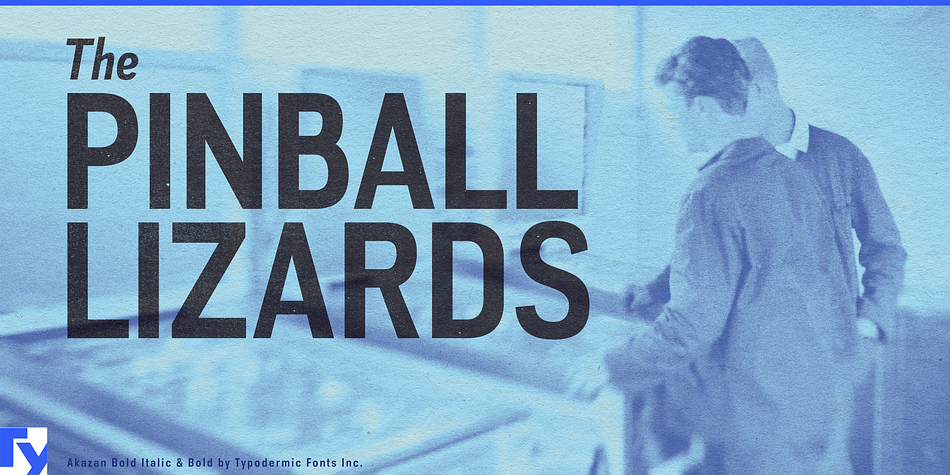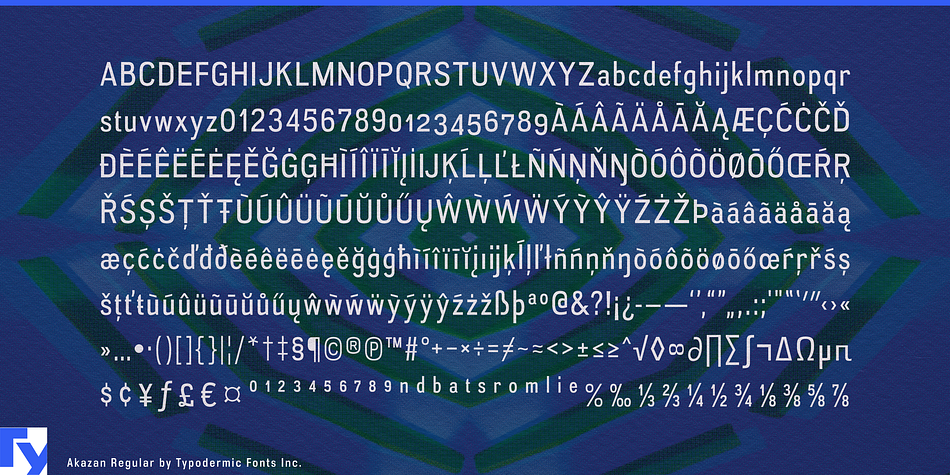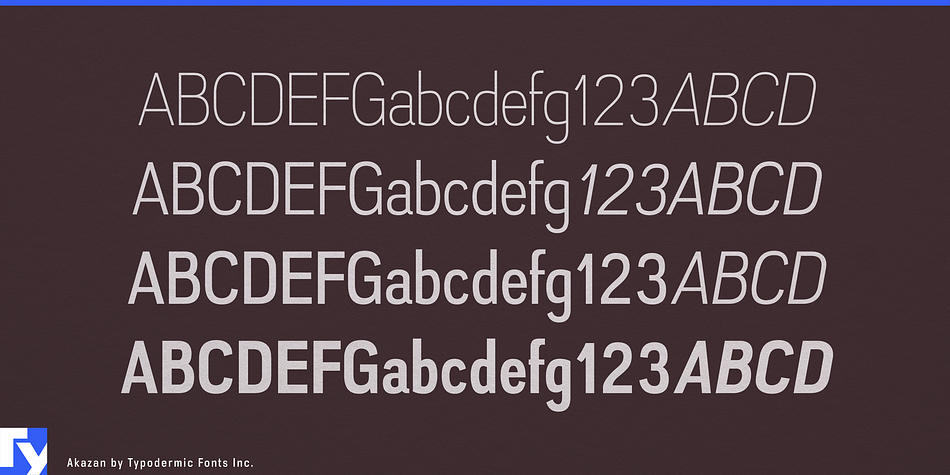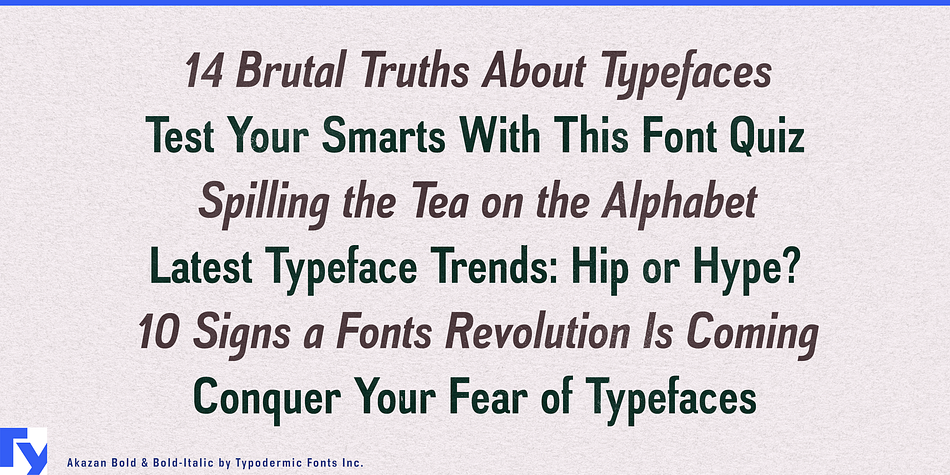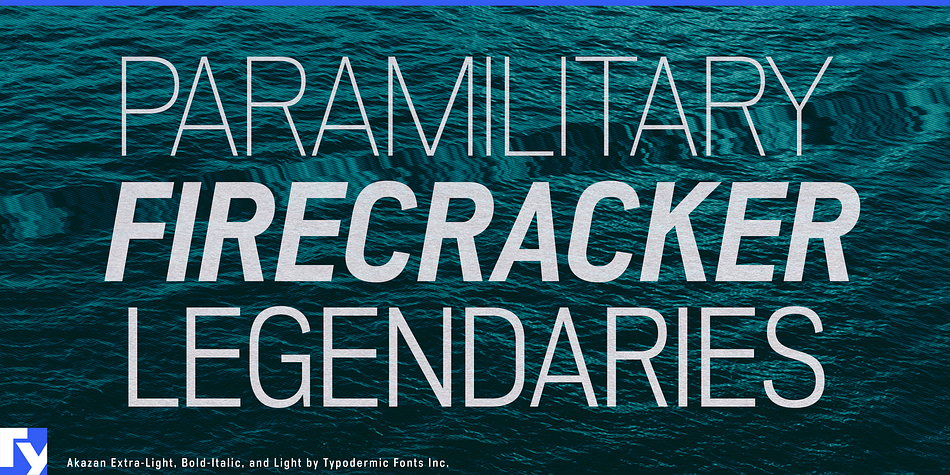
Akazan is a sans serif font family. This typeface has eight styles and was published by Typodermic Fonts Inc.
Akazan is a compact sans-serif typeface—a blend of early twentieth-century grotesque, mid-century technical and 1990’s reductionist style. The result is a typeface with a surreal voice, not quite of this world. It’s ideal for situations where you want to convey the ghostly sense of another time but not specifically retro. Akazan is available in Light, Book, Regular, Bold and italic.